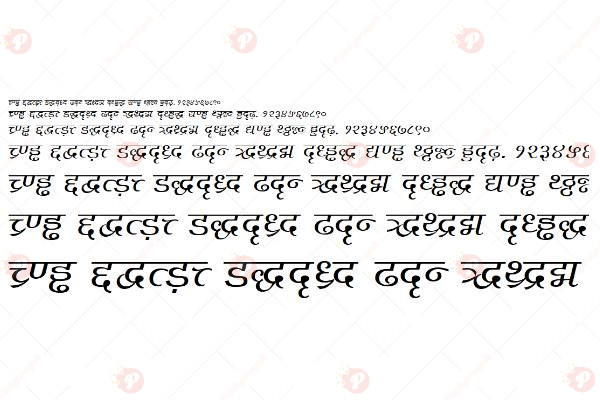
The Ganesh Normal Font is a clean and elegant typeface designed with traditional inspiration and modern usability. With its balanced shapes and simple structure, this font is ideal for branding, invitations, cultural projects, posters, packaging, social media graphics, and editorial design.
Perfect for both digital and print media, Ganesh Normal offers clarity, sophistication, and versatility, making it a great choice for professional designers and creators.
Style: Normal / Regular / Traditional Typeface
Perfect for: Logos, Branding, Invitations, Posters, Packaging, Cultural & Editorial Projects
Add a refined and timeless look to your projects with the Ganesh Normal Font.